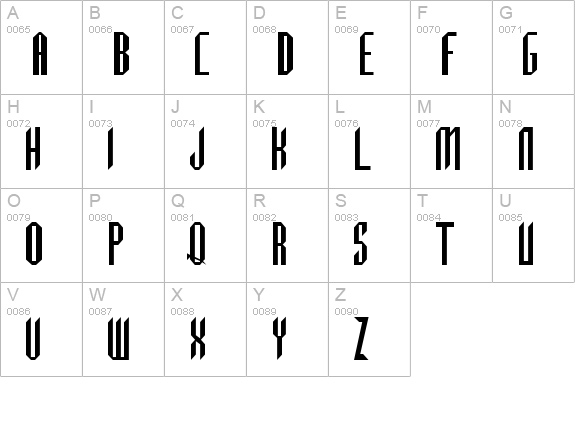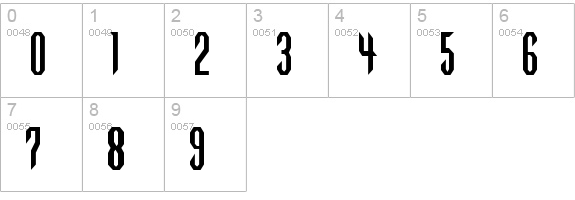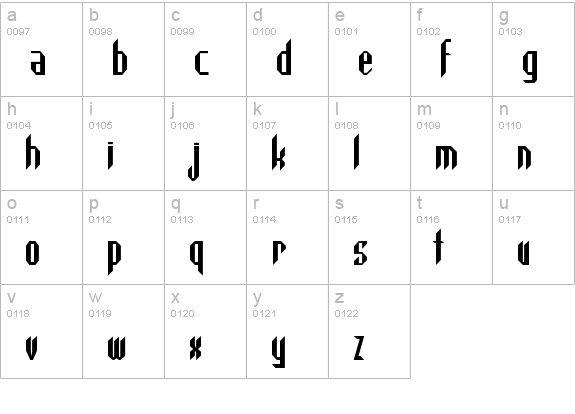
Highlander Regular is the standard, neutral variant in the Highlander typeface family \xE2\x80\x94 well suited to general body text, paragraphs, and standard typographic work.
Highlander Regular font is a timeless and versatile typeface that exudes elegance and sophistication. With its classic yet modern design, this font is perfect for a wide range of projects, from branding to editorial design. The clean lines and balanced proportions of Highlander Regular make it highly readable and visually appealing. Best of all, Highlander Regular is available for free download at FontsMarket.com. Whether you're a designer looking to add a touch of class to your work or a business owner seeking a stylish font for your brand, Highlander Regular is the perfect choice. Don't miss out on this amazing opportunity to enhance your projects with this high-quality font, completely free of charge.